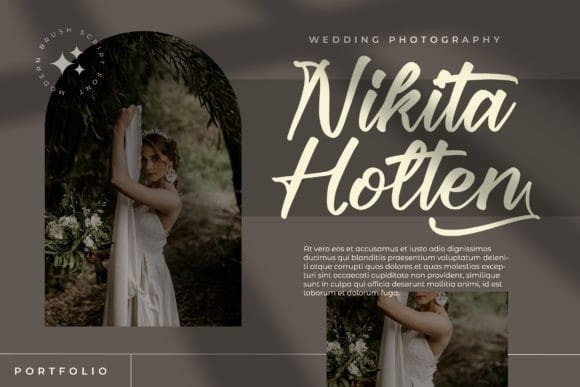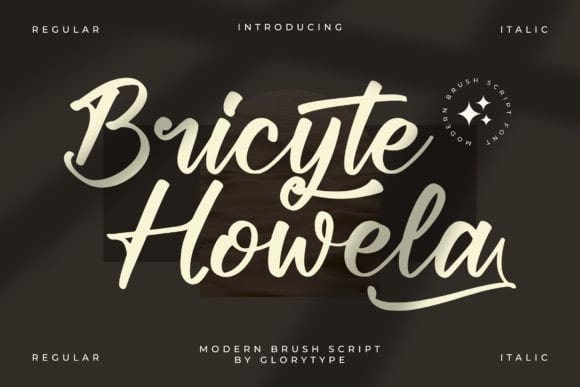
Bricyte Howela Font
Bricyte Howela Font is a dazzling brush script font. This font is neatly crafted and highly detailed. Whatever the topic, this font will be a wonderful asset to your font library, as it has the potential to enhance any creation.